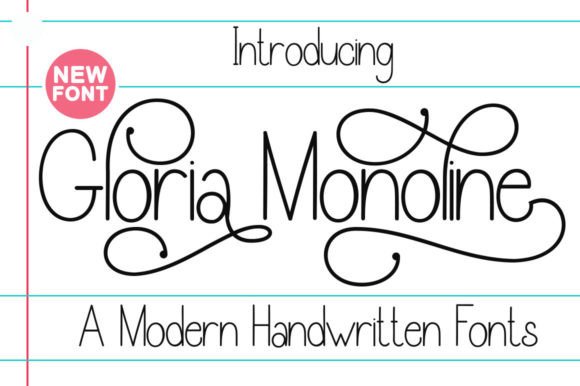
Gloria Monoline Font: The Ultimate Guide to This Beautiful Handwritten Font
Are you looking for a font that can add a touch of elegance and casualness to your designs? Look no further than the Gloria Monoline Font. This beautiful handwritten font is perfect for a variety of projects, from crafts and digital design to presentations and greeting cards. In this article, we’ll take a closer look at the Gloria Monoline Font, its features, and how you can use it to take your designs to the next level.
What is Gloria Monoline Font?
Gloria Monoline Font is a neat and casual handwritten font that is perfect for adding a personal touch to your designs. Its monoline style gives it a clean and elegant look that is sure to impress. The font is highly versatile and can be used for a wide range of projects, from personal crafts to professional designs.
Key Features of Gloria Monoline Font
- Monoline style: The font features a monoline style that gives it a clean and elegant look.
- Handwritten: The font has a handwritten feel that adds a personal touch to your designs.
- Neat and casual: The font is both neat and casual, making it perfect for a variety of projects.
- Highly versatile: The font can be used for a wide range of projects, from crafts and digital design to presentations and greeting cards.
Uses of Gloria Monoline Font
Gloria Monoline Font is a highly versatile font that can be used for a wide range of projects. Here are some of the ways you can use this beautiful font:
1. Crafts
Gloria Monoline Font is perfect for craft projects such as scrapbooking, card making, and journaling. The font’s handwritten feel and monoline style make it a great choice for adding a personal touch to your crafts.
2. Digital Design
The font is also great for digital design projects such as social media graphics, blog posts, and website designs. The font’s clean and elegant look makes it perfect for creating professional-looking designs.
3. Presentations
Gloria Monoline Font is a great choice for presentations, whether you’re creating a presentation for work or school. The font’s monoline style and handwritten feel make it easy to read and add a touch of elegance to your presentation.
4. Greeting Cards
The font is also perfect for creating greeting cards for special occasions such as birthdays, weddings, and holidays. The font’s handwritten feel and monoline style make it a great choice for adding a personal touch to your cards.
Why Choose Gloria Monoline Font?
There are many reasons why you should choose Gloria Monoline Font for your next project. Here are some of the benefits of using this beautiful font:
1. Unique and Elegant
Gloria Monoline Font is a unique and elegant font that will add a touch of sophistication to your designs.
2. Highly Versatile
The font is highly versatile and can be used for a wide range of projects, from crafts and digital design to presentations and greeting cards.
3. Easy to Read
The font’s monoline style and handwritten feel make it easy to read, even at small sizes.
4. Perfect for Personal and Professional Projects
Gloria Monoline Font is perfect for both personal and professional projects, making it a great addition to your font collection.
Gloria Monoline Font is a beautiful handwritten font that is perfect for adding a touch of elegance and casualness to your designs. Its monoline style and handwritten feel make it a great choice for a wide range of projects, from crafts and digital design to presentations and greeting cards. With its highly versatile nature and ease of use, Gloria Monoline Font is a great addition to any font collection.